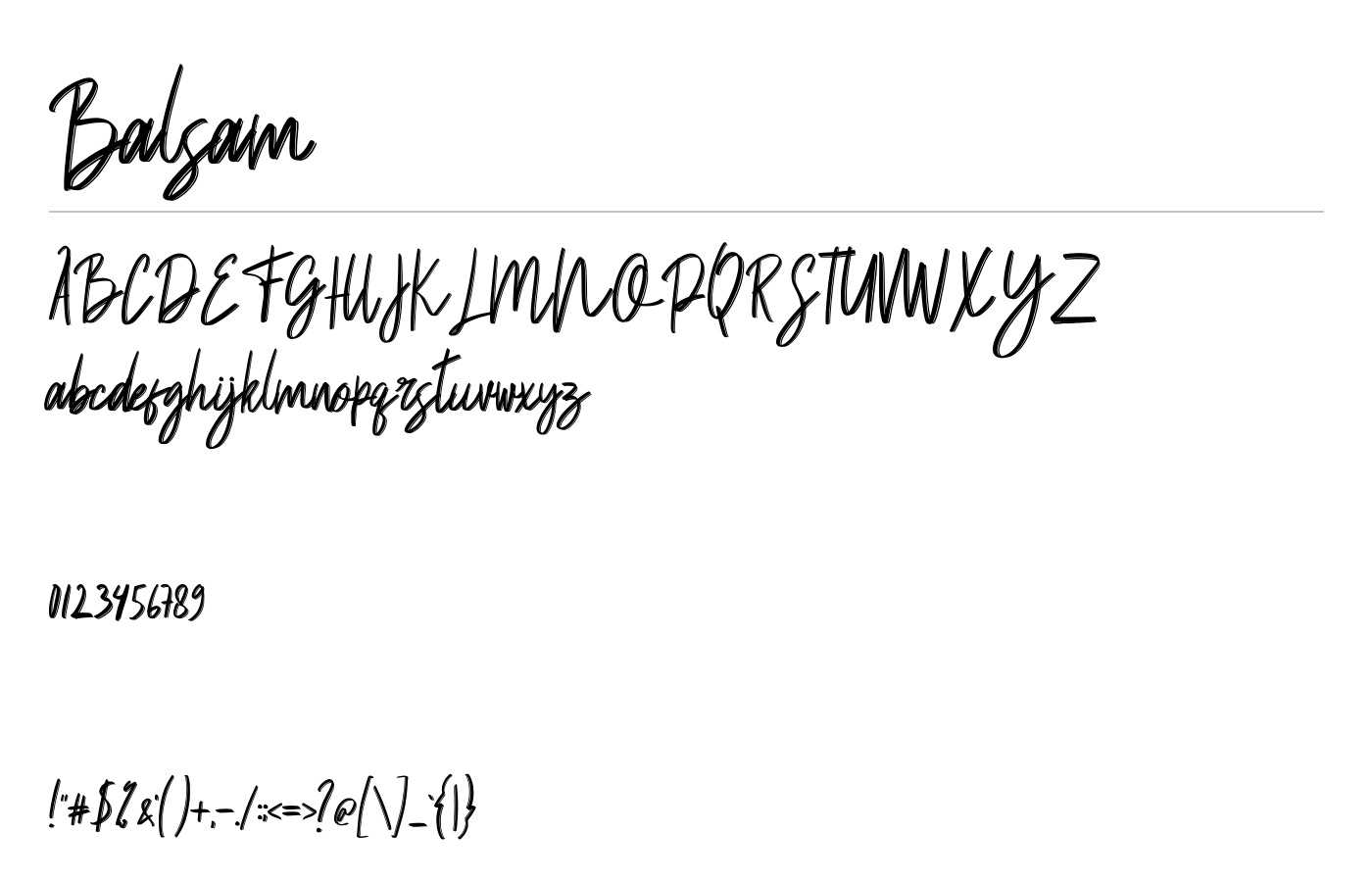
Balsam is a lively and expressive handwritten script font with a casual, brush-like style that feels personal and approachable. Its tall, narrow letterforms and slightly uneven strokes give it an energetic and artistic vibe, making it ideal for modern, creative branding, invitations, and playful editorial projects where a unique and friendly tone is desired. This font works well to add personality and warmth without sacrificing readability.
Balsam Font
About Balsam Font